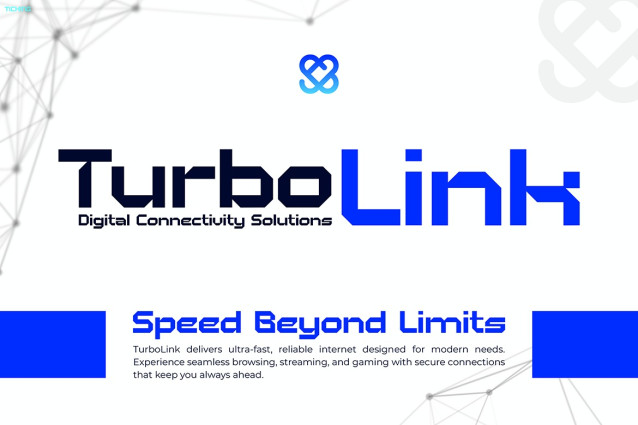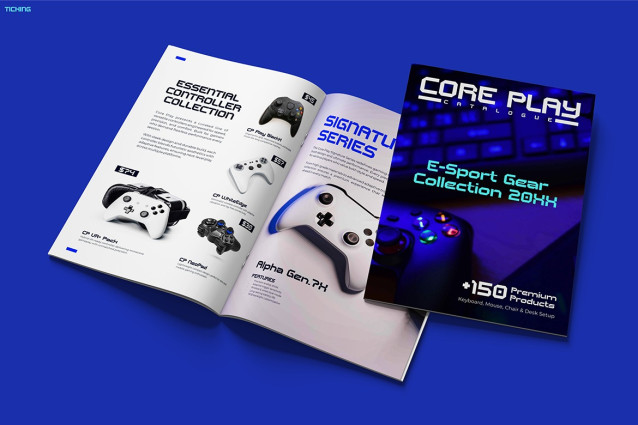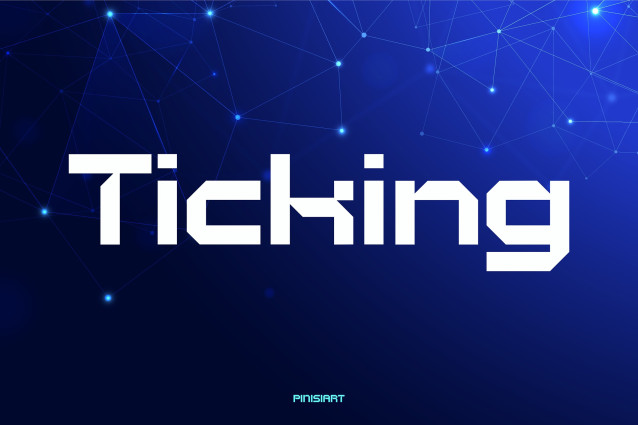
Ticking Futuristic Font
Ticking Futuristic Font is more than just a typeface; it is a vision of tomorrow’s design language. With its sharp geometry, sleek edges, and modern digital vibe, this font creates a bold impact that feels futuristic yet approachable. Moreover, its clean structure and balanced proportions make it versatile across both creative and professional projects. As a result, your designs will not only stand out visually but also communicate innovation and forward-thinking style. While many fonts simply decorate, Ticking actively defines the mood of your project with precision and energy.
Futuristic Font Ticking is not limited to one type of creator. Instead, it offers power and flexibility to a wide audience. Graphic designers, for example, will find it ideal for posters, covers, and visual branding that demand futuristic character. In addition, tech companies can use it to reinforce their brand identity with a modern, intelligent, and future-ready tone. Moreover, game developers will see how it fits perfectly in sci-fi titles, immersive AR/VR experiences, or cyberpunk-inspired visuals. Digital marketers, on the other hand, can rely on it to create high-impact campaigns, striking social media posts, and banners that instantly capture attention. Therefore, regardless of your niche, this font adapts seamlessly while adding a strong layer of innovation.
Choosing Futuristic Font Ticking is not only about aesthetic appeal; it is also about performance. Because of its sharp readability and strong presence, your message will always remain clear, even in fast-paced digital environments. Furthermore, the futuristic design creates trust and excitement, which is essential when presenting advanced technology or innovative products. In addition, its geometric style ensures that your designs look polished and professional while still carrying a fresh digital energy. Ultimately, this font empowers you to communicate with authority, modern flair, and visual impact. So, if you want your projects to feel unforgettable, Futuristic Font Ticking is the perfect choice to elevate your creative journey.